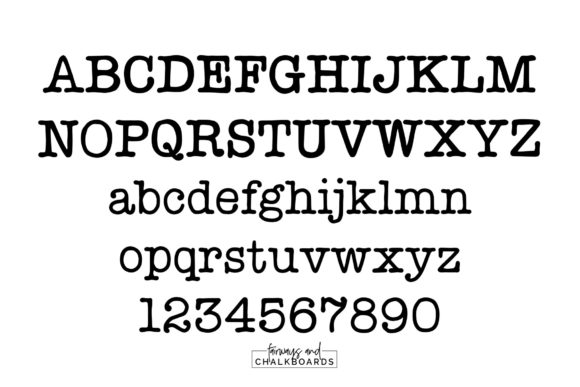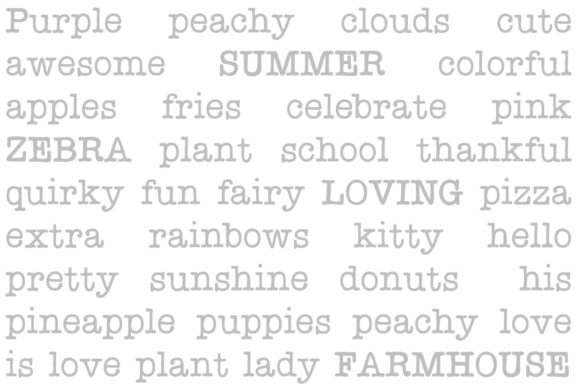
Front Porch Font
FRONT PORCH FONT SPECIMEN
Front Porch is a cool, retro styled slab serif font. It can be used for various creations, such as newspaper titles, magazine covers, logos, branding and so much more.